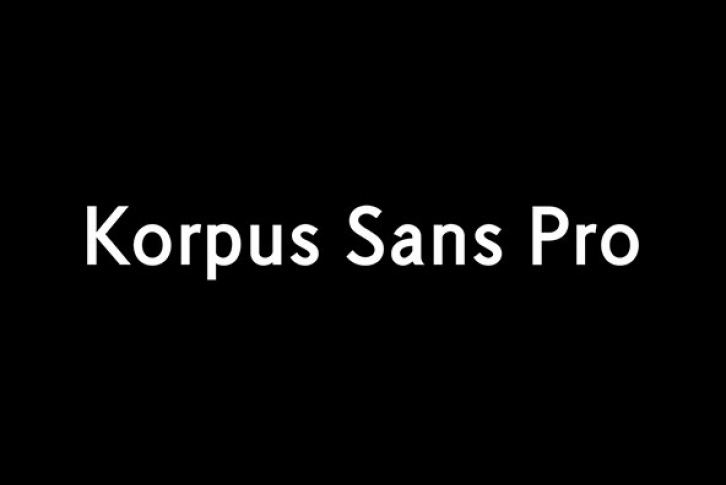
A sans serif body text font family which covers West and East European languages as well as. Cyrillic and Greek. All styles included small caps and old style figures.